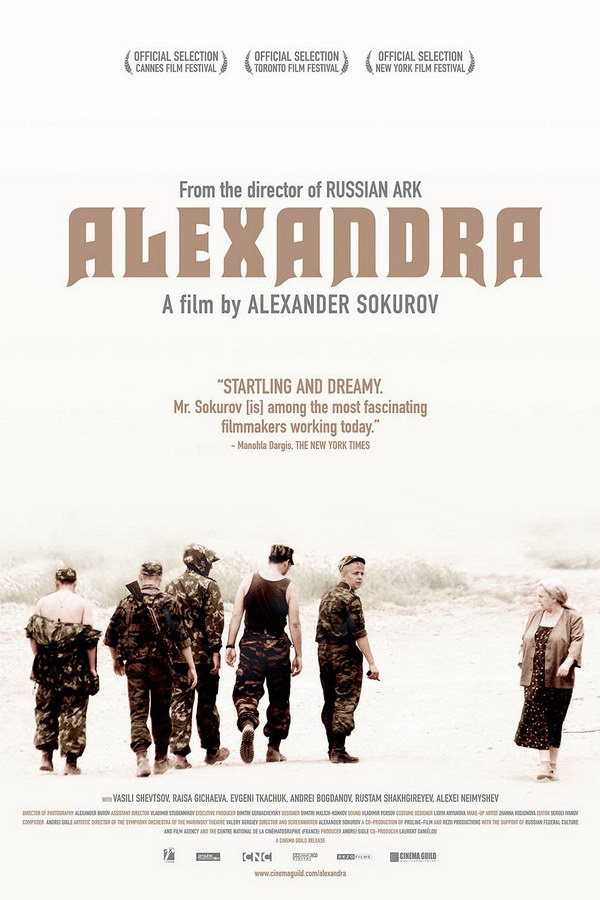
Alexandra Font
Fonts in UseAlexandra is a 2007 Russian film directed by Alexander Sokurov. It is a contemplative, meditative piece that examines the relationship between an elderly Russian woman and a young Russian soldier serving in Chechnya.